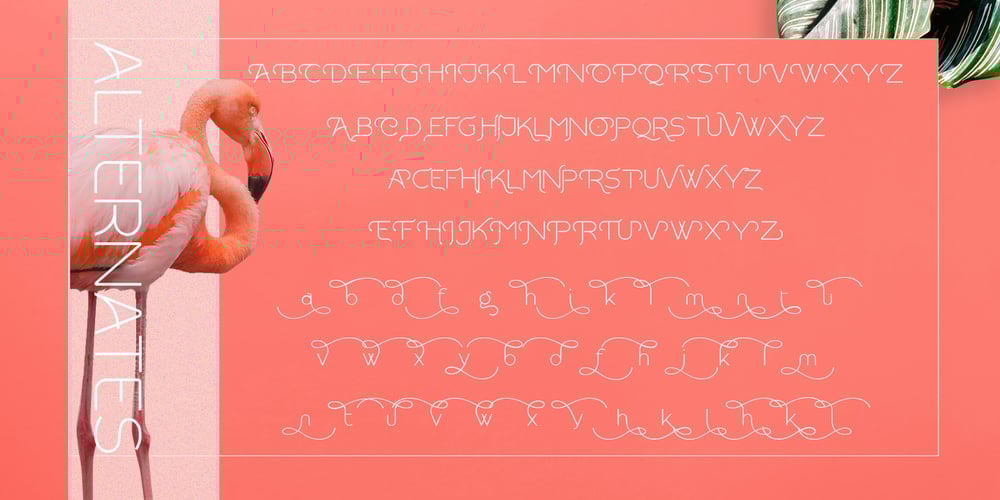
Rollgates Font Family was designed by Isfani and published by Cotbada Studio. Rollgates contains 1 styles and family package options. Rollgates – An Modern Sans Serif and minimalist character! it’s perfect for logos, name card, magazine layouts, invitations, headers, or even large-scale artwork.